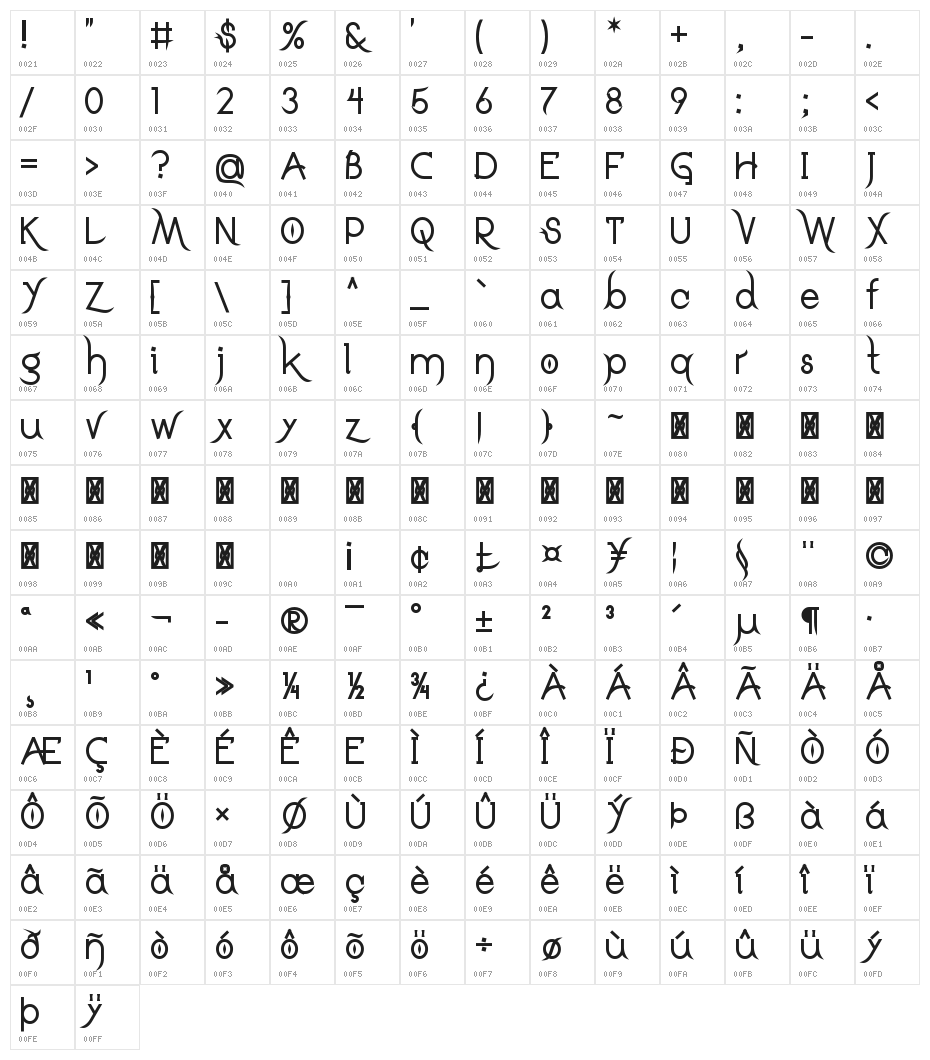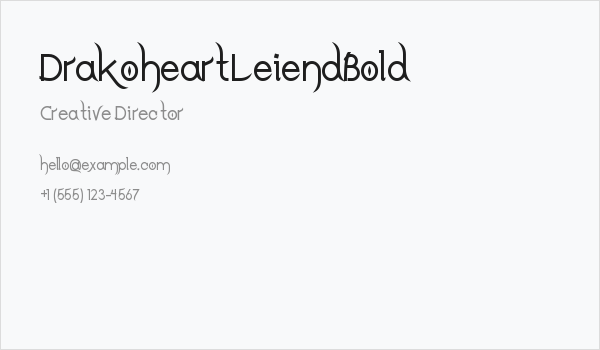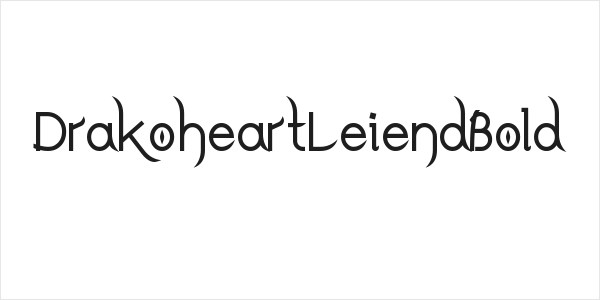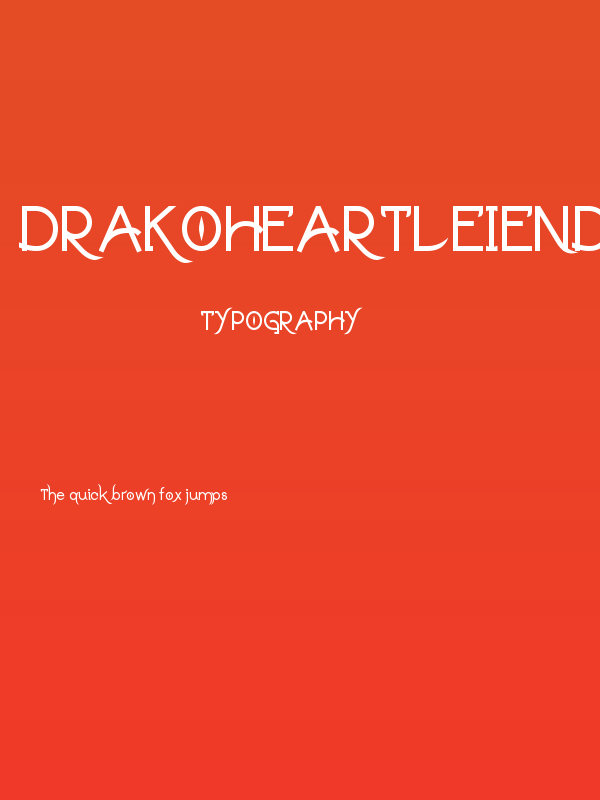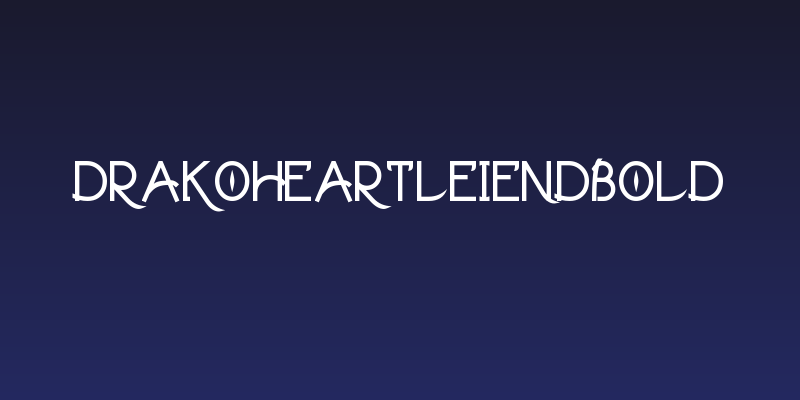
DrakoheartLeiendBold Font
DrakoheartLeiendBold Description
This font features a unique and artistic design with a blend of sharp angles and smooth curves, creating a dynamic and eye-catching appearance. The uppercase letters are bold and striking, with distinctive serifs that add a touch of elegance. The lowercase letters maintain a consistent style, offering a harmonious balance between readability and decorative flair. Numbers and special characters are crafted with the same attention to detail, ensuring a cohesive look across all elements. The font's boldness and artistic style make it suitable for creative projects that require a strong visual impact.
Overall StyleModern, Decorative
Proposed ProjectsIdeal for branding, posters, album covers, and any project that requires a bold and artistic touch.